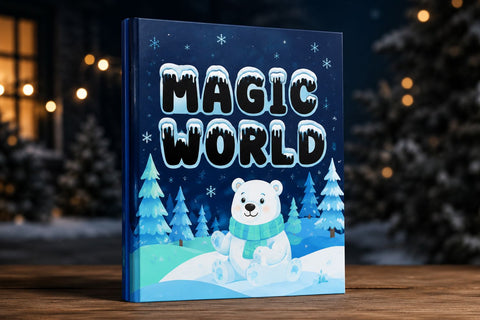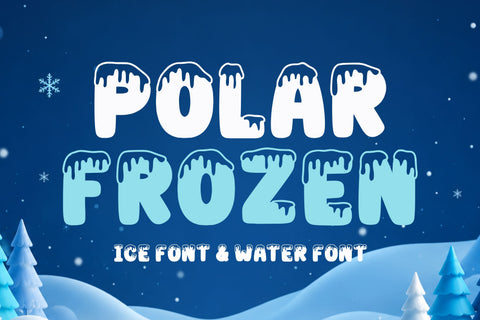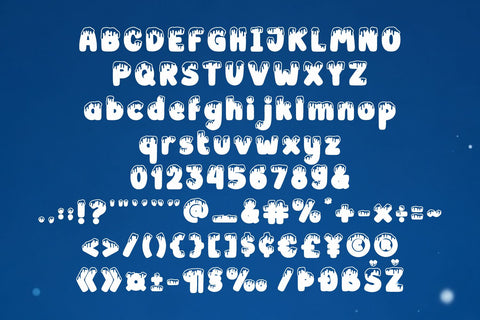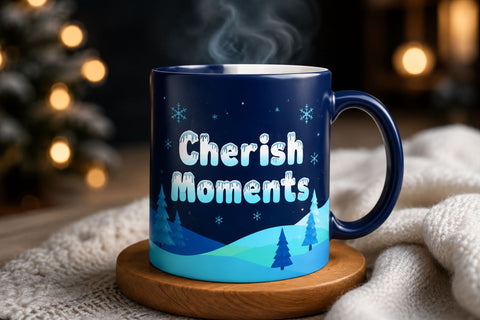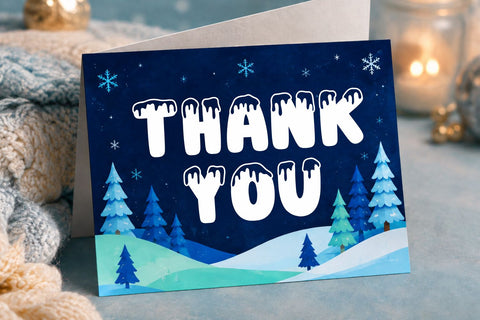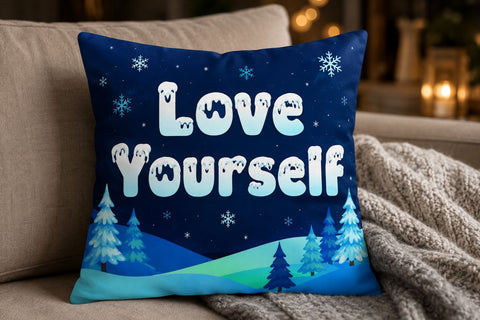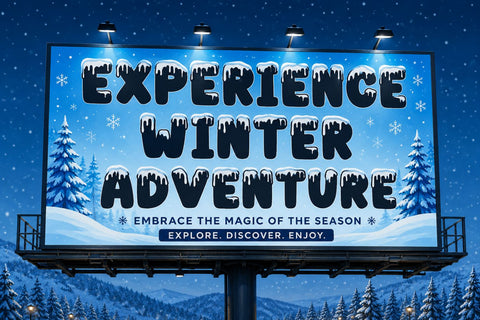
Polar Frozen - Ice Font
Polar Frozen – Ice Style & Water Style
Polar Frozen is a bold frozen display font inspired by melting ice, frozen water, and the cold atmosphere of the polar winter. Featuring strong and distinctive letterforms, this icy font creates a dramatic visual impact that instantly captures attention. Its unique frozen appearance makes it perfect for designers looking for typography with a cold, refreshing, and energetic personality.
With its **melting ice and water-inspired effects**, Polar Frozen gives every letter a dynamic and fluid appearance. The combination of solid frozen forms, dripping details, and liquid-inspired elements creates a striking contrast between ice and water. This display font works especially well when large typography is the main visual element of a design.
Inspired by frozen landscapes, glaciers, arctic environments, melting ice, and icy water, Polar Frozen combines a powerful display style with a distinctive winter aesthetic. Its bold structure allows the typography to remain visually strong while the melting details add movement and character. The result is an eye-catching font that feels cold, dramatic, and modern.
With its distinctive **ice melting effect and water-inspired appearance**, Polar Frozen offers a fresh alternative to traditional winter fonts. Whether you are creating an ice-themed poster, frozen event campaign, cold beverage design, gaming title, or dramatic promotional artwork, this frozen display font adds a unique visual identity to your typography.
**Frozen Ice Display Style**
A bold display font inspired by frozen surfaces, glaciers, and icy winter environments.
**Melting Ice Effect**
Distinctive melting details create the appearance of ice gradually turning into water.
**Water-Inspired Typography**
Fluid and dripping elements add movement and a refreshing visual character to the letters.
**Bold Display Letterforms**
Strong and eye-catching letterforms are designed to stand out in large headlines and titles.
**Winter & Arctic Aesthetic**
Perfect for designs inspired by snow, ice, glaciers, polar landscapes, and cold environments.
Polar Frozen is a distinctive **frozen display font** that combines bold typography with the visual character of melting ice and flowing water. Its strong letterforms and icy details make it an excellent choice for designers who want typography that feels cold, dynamic, dramatic, and unforgettable.